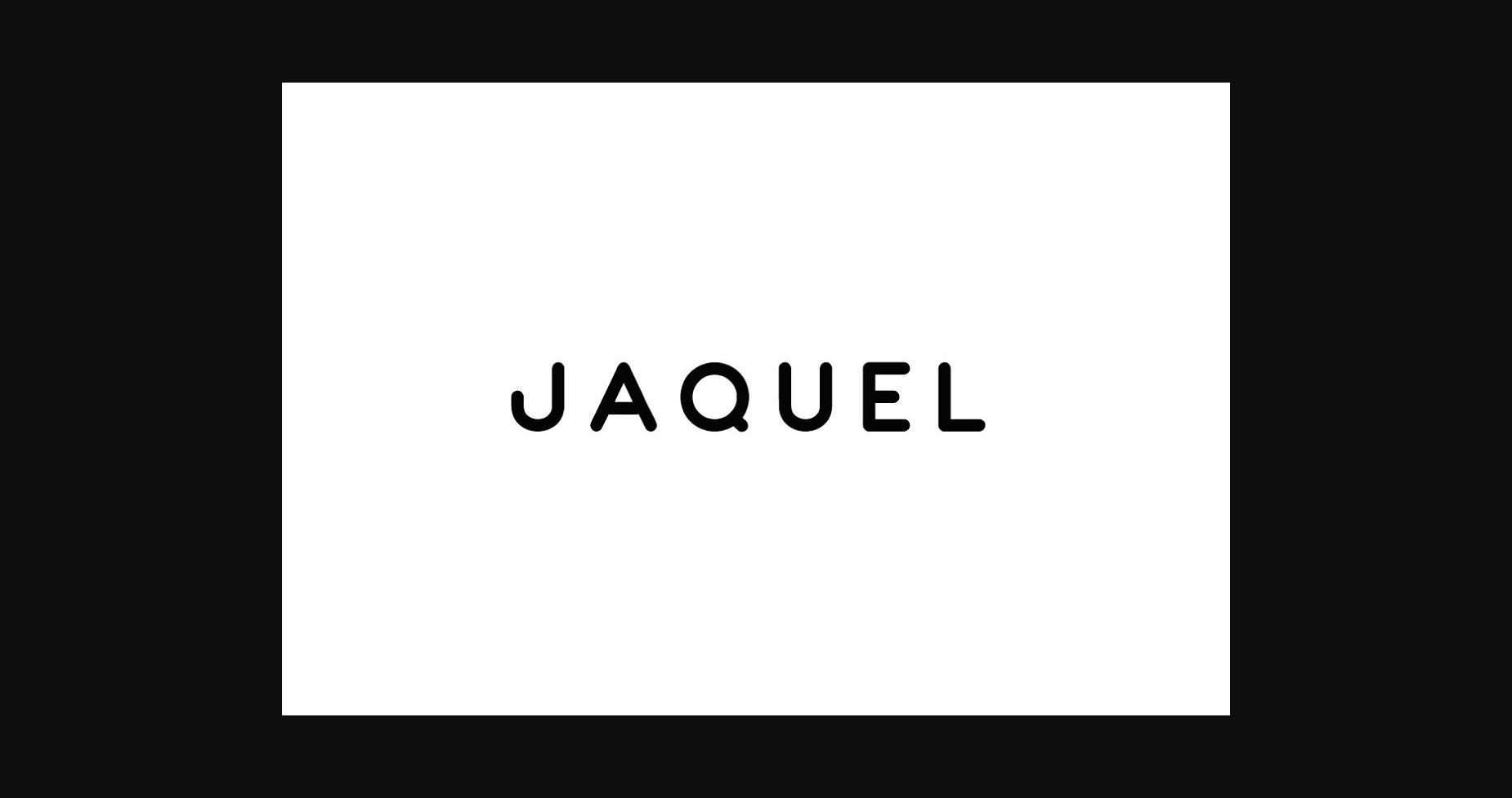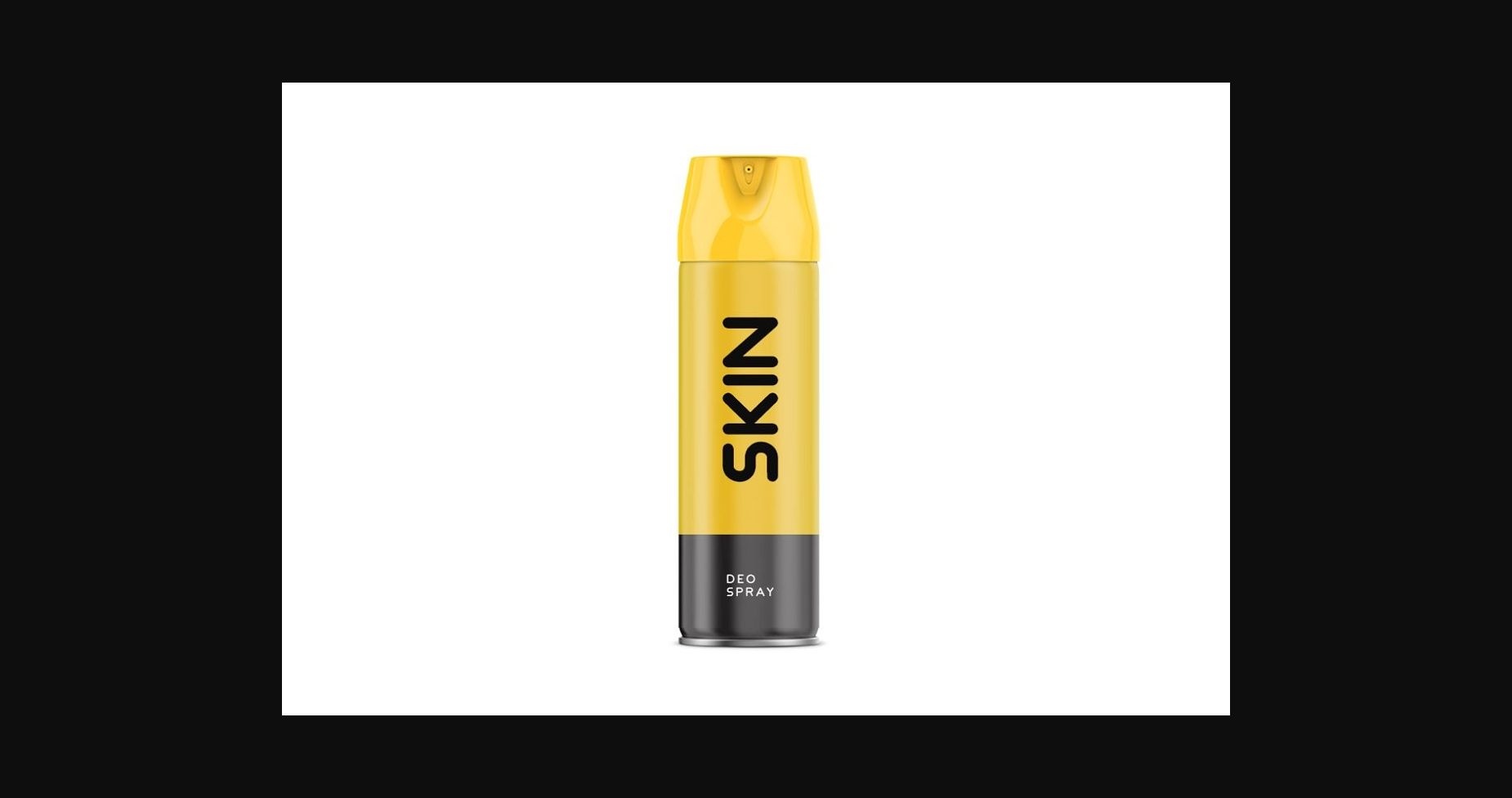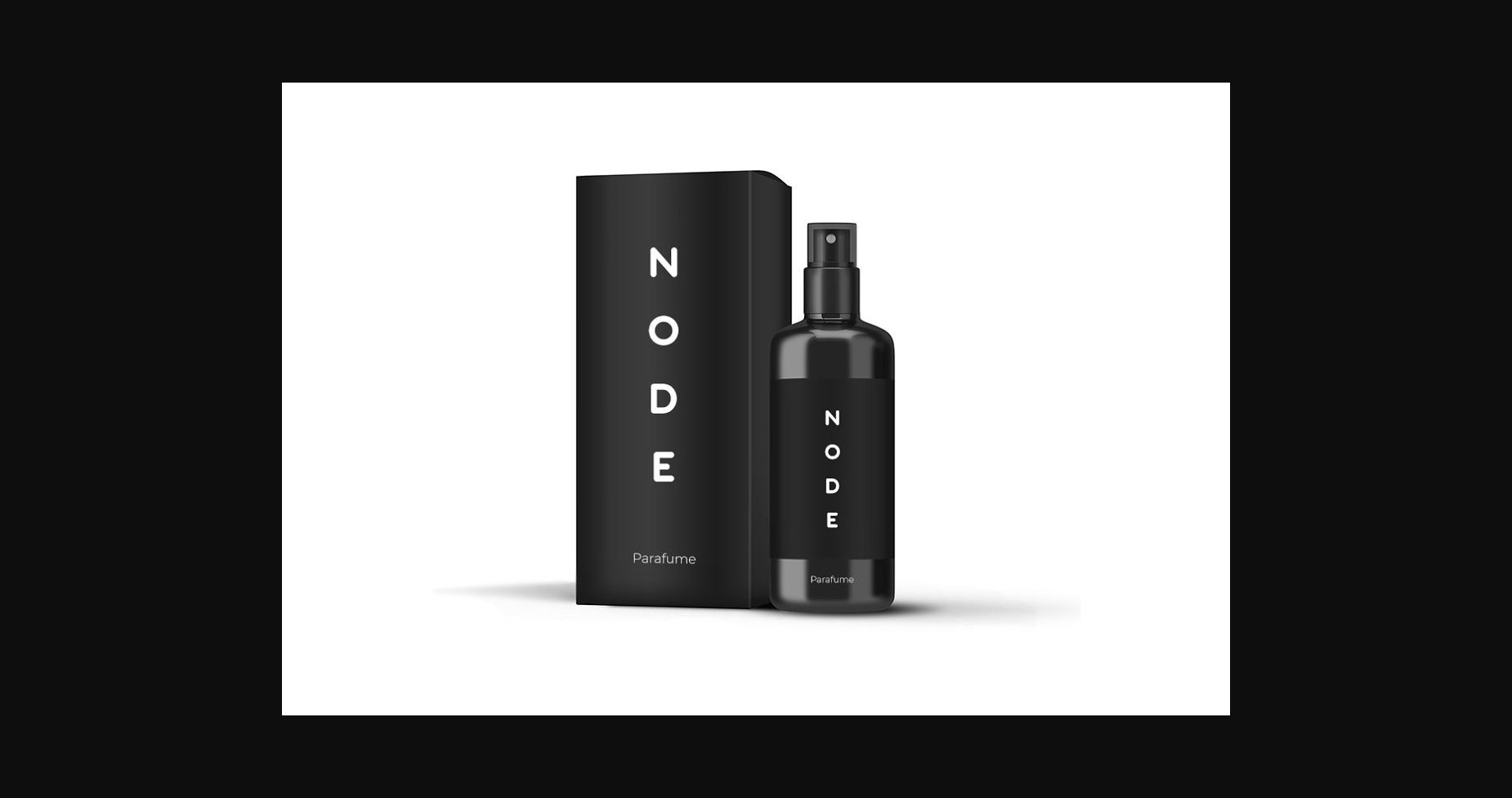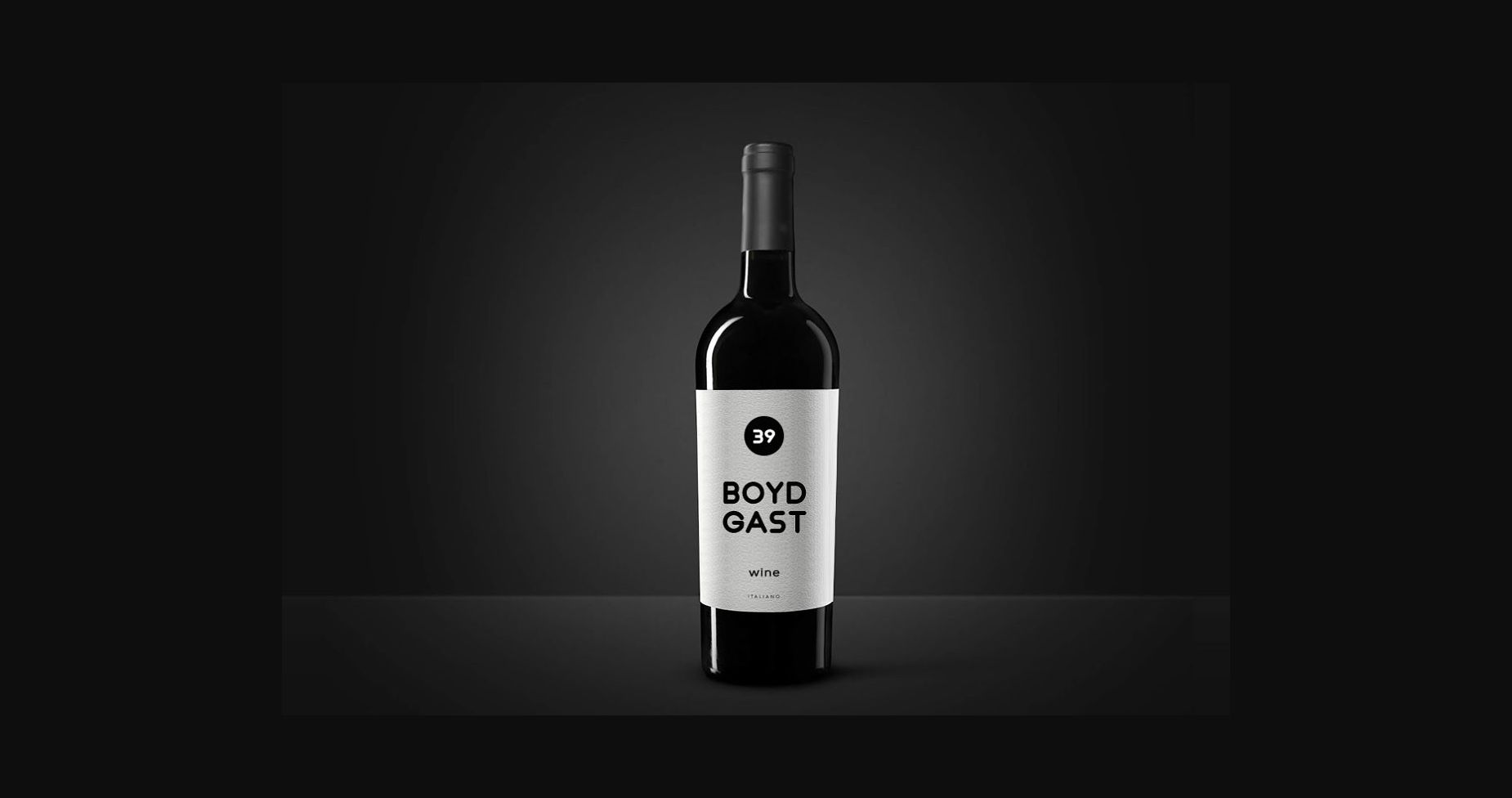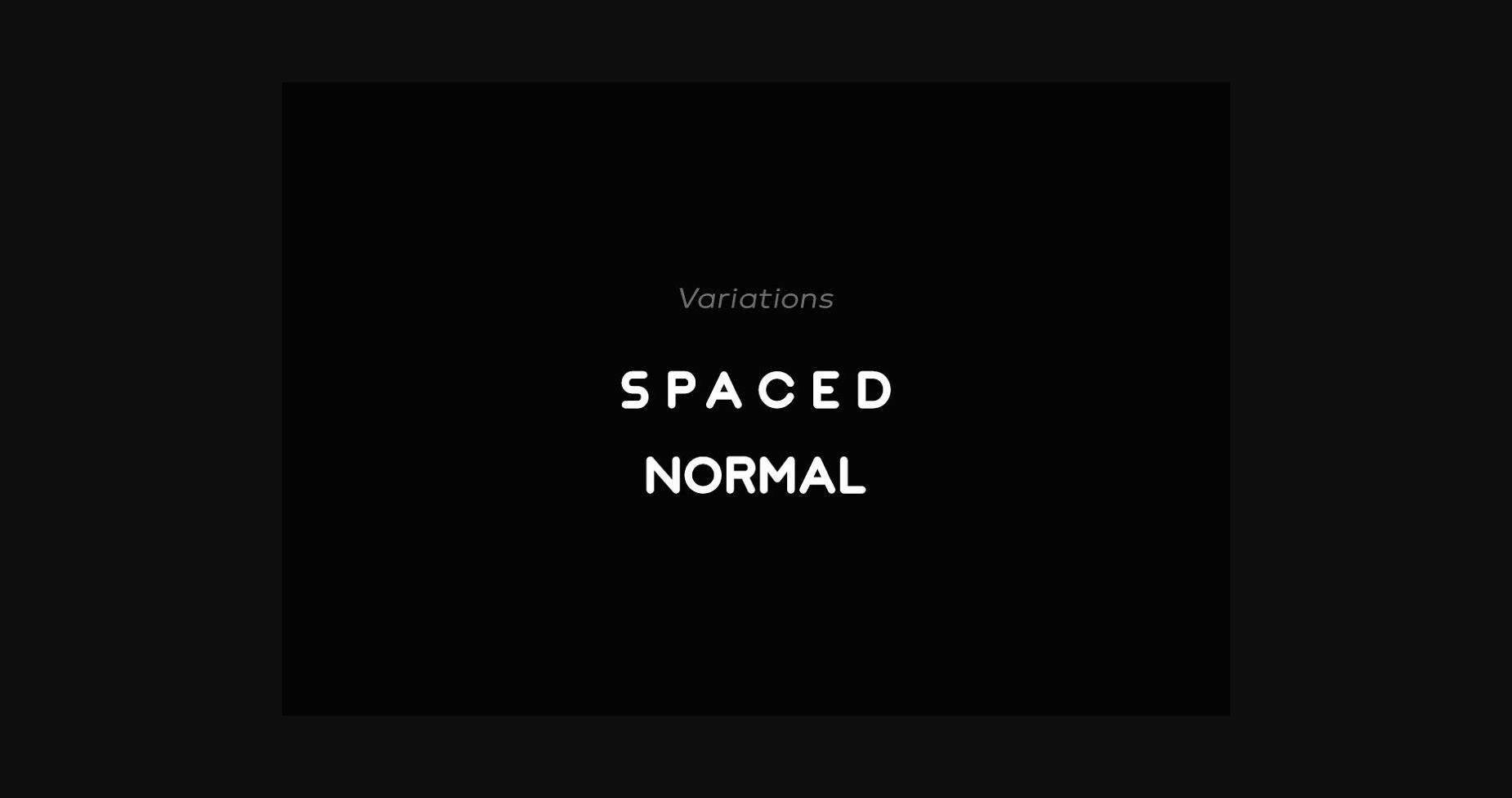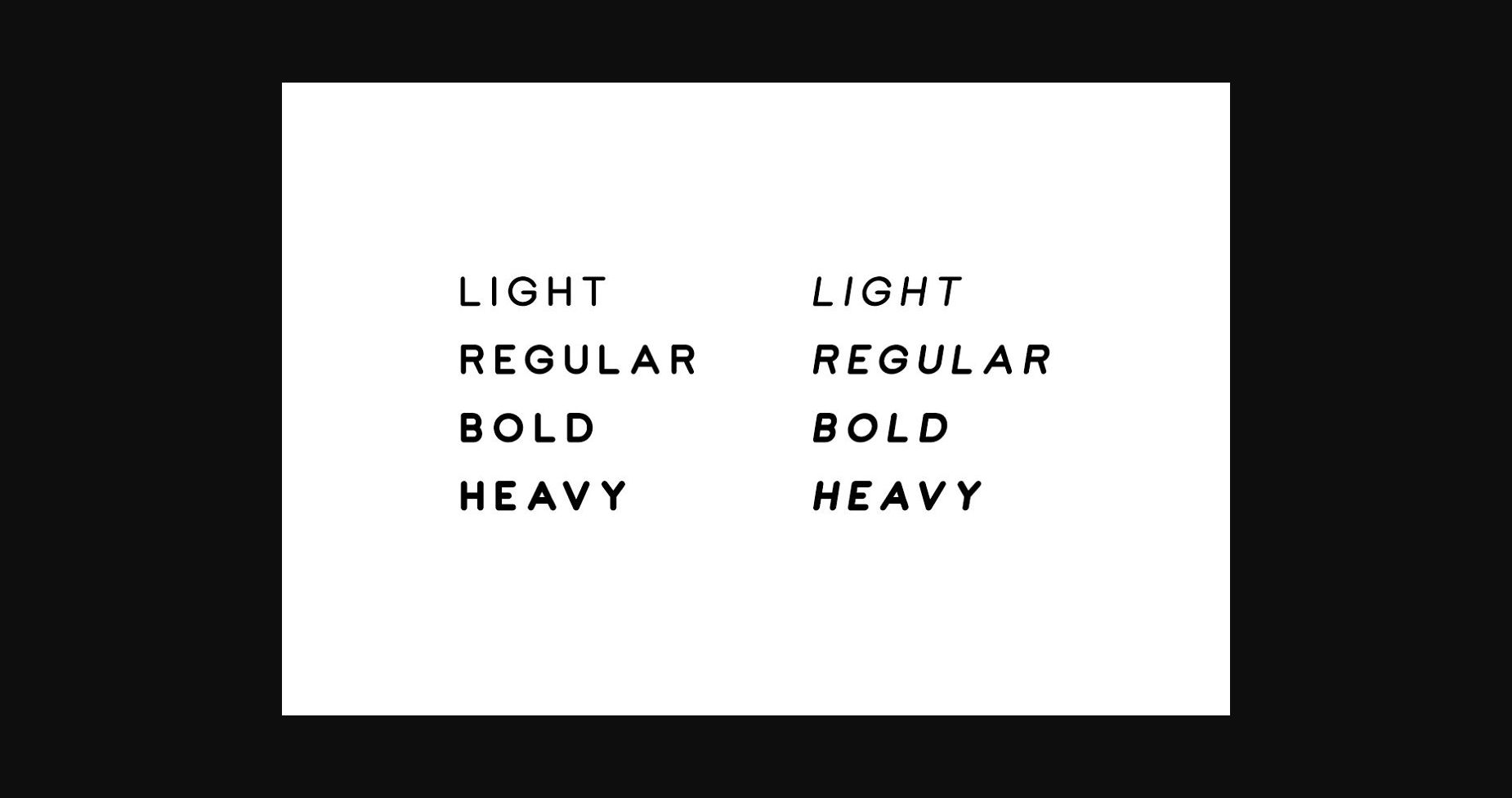
Jaquel is a clean and neat sans serif font. Add this minimalist and techno styled font to your web designs, logos or pretty much anything that requires a smart, cool touch.